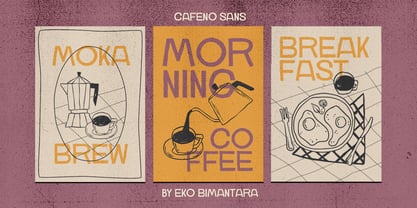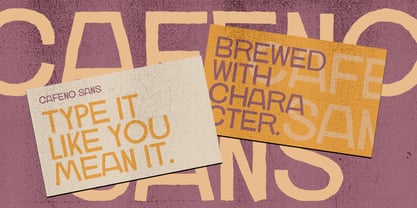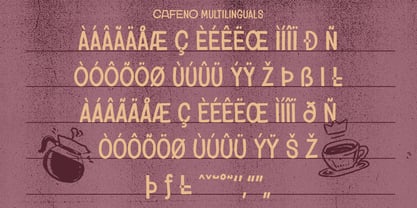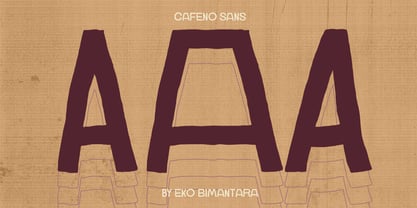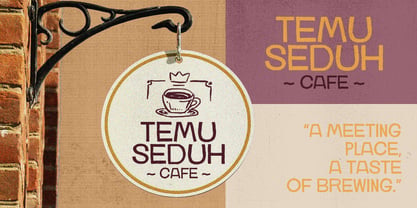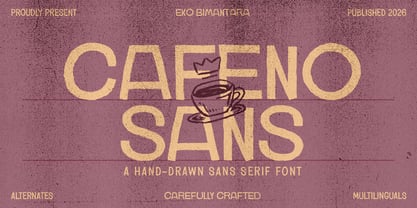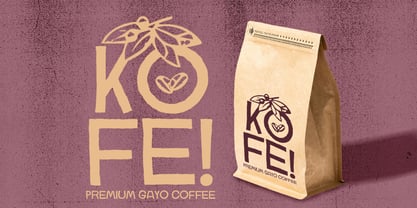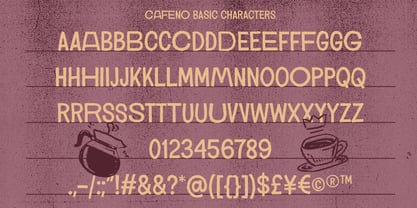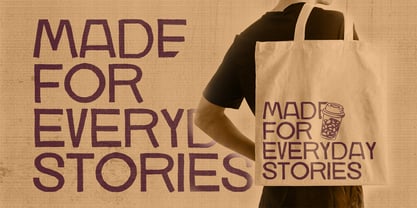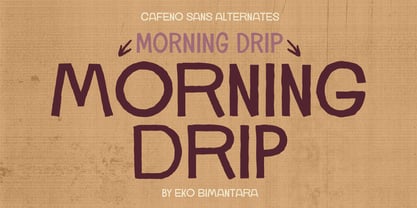
Cafeno
by Eko Bimantara
The Cafeno Font Family was designed by Eko Bimantara, Fauzi HIdayat and published by Eko Bimantara. Cafeno contains 1 styles. More about this family
Cafeno Sans is a warm and expressive hand-drawn sans serif typeface crafted to bring authenticity and charm into modern design projects. Featuring organically imperfect strokes, clean proportions, and a relaxed contemporary feel, this font delivers a friendly yet refined visual character suitable for branding, café identities, packaging, social media graphics, posters, editorial layouts, and lifestyle products. Its handcrafted aesthetic creates a natural human touch while maintaining excellent readability and versatility across both digital and print applications. Carefully designed with multilingual support, Cafeno Sans combines simplicity, personality, and creative flexibility into a typeface that feels approachable, stylish, and timeless.